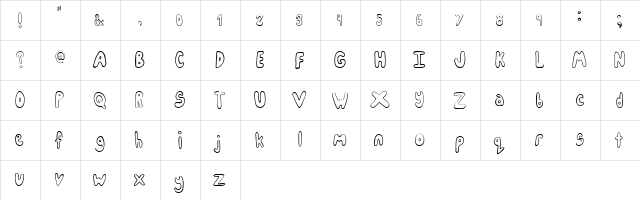
IceCreamParty Regular
| Foundry | Xerorapher Type Foundry |
| Designer | Max Infeld |
Design Context for IceCreamParty Typeface
IceCreamParty is a composed and adaptable typeface that performs quietly and consistently across a wide range of design contexts.